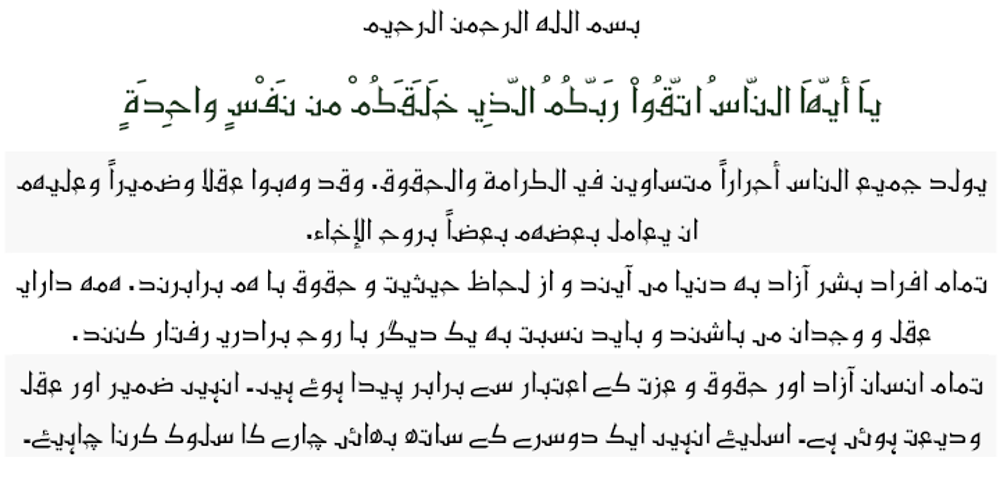
Kufi Mutamathil Font Family was designed by Saad D. Abulhab and published by Arabetics. Kufi Mutamathil contains 2 styles and family package options. Kufi Mutamathil is an Arabetic (extended Arabic) typeface design with heavy Arabic Kufi calligraphy accent, both on a single letter level and in an overall text look and feel. Although Kufi, the earliest Arabic calligraphy style, is often described as “stiff”, it is in fact a very flexible style. The Kufi Mutamathil typeface design underlines this calligraphy style flexibility and openness through visualizing a very legible Mutamathil design with Kufi shapes. The Mutamathil type style utilizes only one isolated glyph per Arabic Unicode character or letter, as defined in Unicode Standards. It is a very light style which does not require any standard glyph substitution or the shaping engine. The Kufi Mutamathil font family employs variable, unrestricted, x-height values. It comes in regular and left-slanted italic styles. Kufi Mutamathil includes all required Lam-Alif ligatures. Soft-vowel diacritic marks, or harakat, are selectively positioned with the majority of them appearing on the same level, over or below, following a letter, to ensure that they would not interfere with individual glyphs appearance. Kashida, or tatweel, (shft-j) is a zero-width character. Keying it before Alif-Lam-Lam-Ha will display the Allah ligature. Kufi Mutamathil includes both Arabic and Arabic-Indic numerals, in addition to all Standard English keyboard punctuations and major currency symbols.